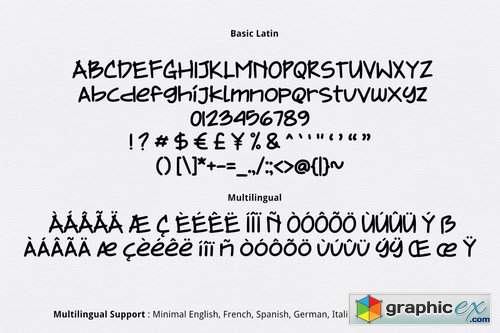
Asymmetric Font
Asymmetric Font is simple cute marker multipurpose handmade font, suitable for many project children book, quotes, logo , heading , title etc.